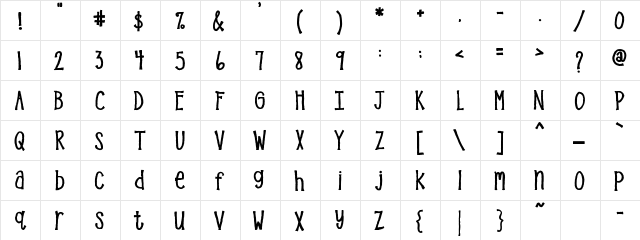
Design Context for MB Gigglefest Typeface
MB Gigglefest is a composed and adaptable typeface that performs quietly and consistently across a wide range of design contexts.